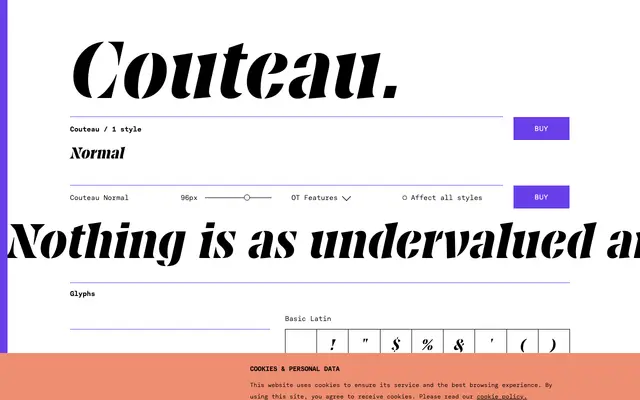
Couteau
A single-weight display serif by Pierre Pané-Farré inspired by knife- and chisel-cut letterforms, released as part of TYPE BY's Stencil Fonts Series in 2012.
Drawing on the tradition of cut lettering, Couteau pairs long sweeping curves with sharp angular serifs in a slanted roman frame that gives the face a dynamic, forward-leaning quality. It shares its lineage with Berthold Wolpe's Albertus, itself rooted in chisel-cut bronze lettering, though Couteau pursues a more assertive and direct character suited to display settings. Released in a single Normal weight alongside Orly Stencil, it was developed to accompany an exhibition on stencil letters curated by Eric Kindel and Fred Smeijers in Antwerp.
Couteau features sharp angular serifs and brisk curves derived from knife- and chisel-cut lettering, placing it firmly in the display category. Its stencil-influenced construction and slanted roman frame make it unsuitable for text use.